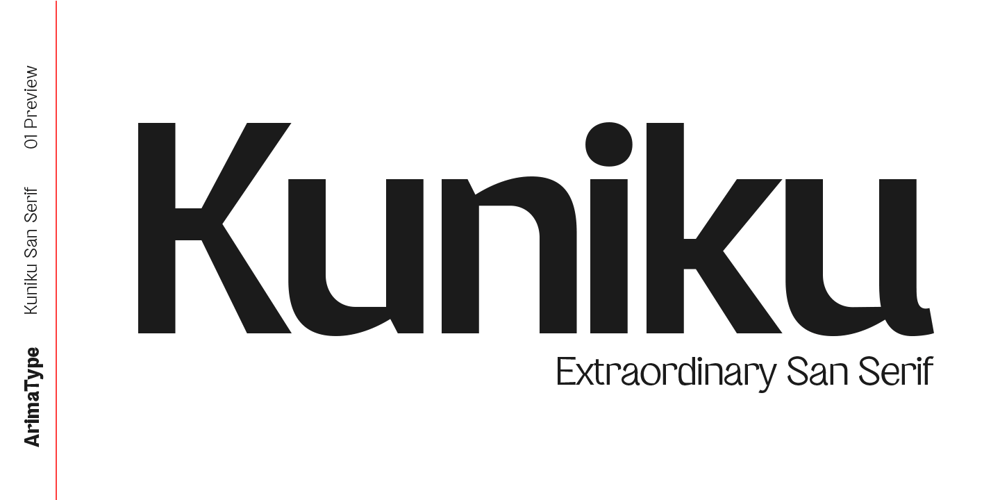
Kuniku
Kuniku font
Kuniku Font Family was designed by Amri Mauludin and published by ArimaType. Kuniku contains 16 styles and family package options. Kuniku is an unconventional sans serif font that sticks to the rules. These can easily fit into a very large set of projects, so add them to your creative ideas and see how they make them stand out.Each character is uniquely crafted and would be amazing to complement any project you’re working on. Use it to create beautiful titles, beautiful invitations, stunning logos and more!! Perfect for displays, headers, invitations, save the date, weddings and more!This font is PUA encoded which means you can access all the glyphs and sweeps easily!